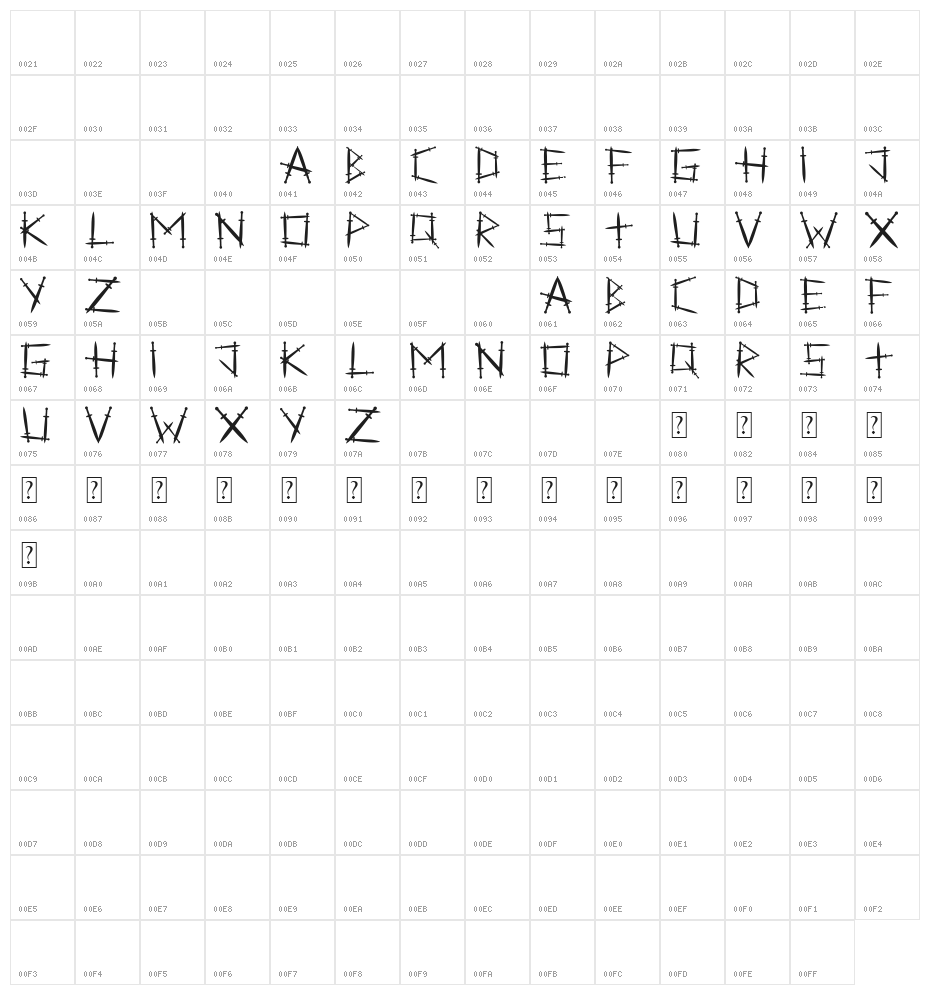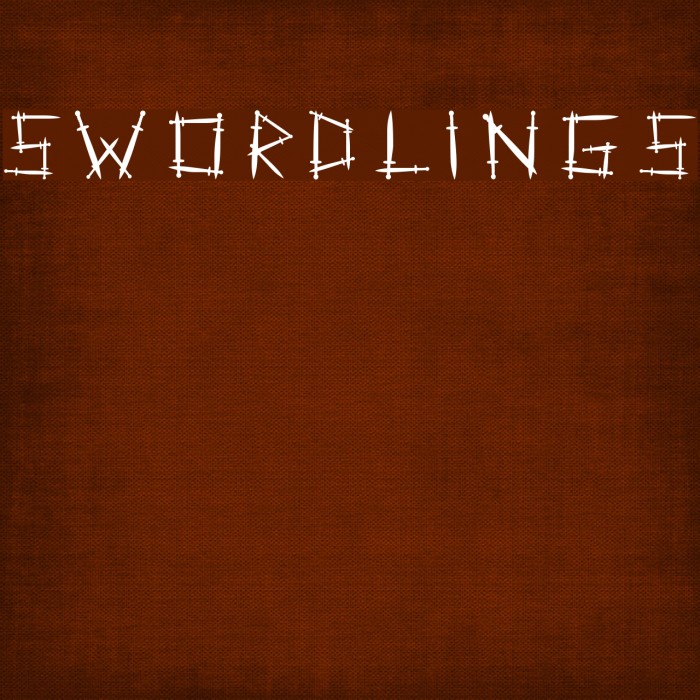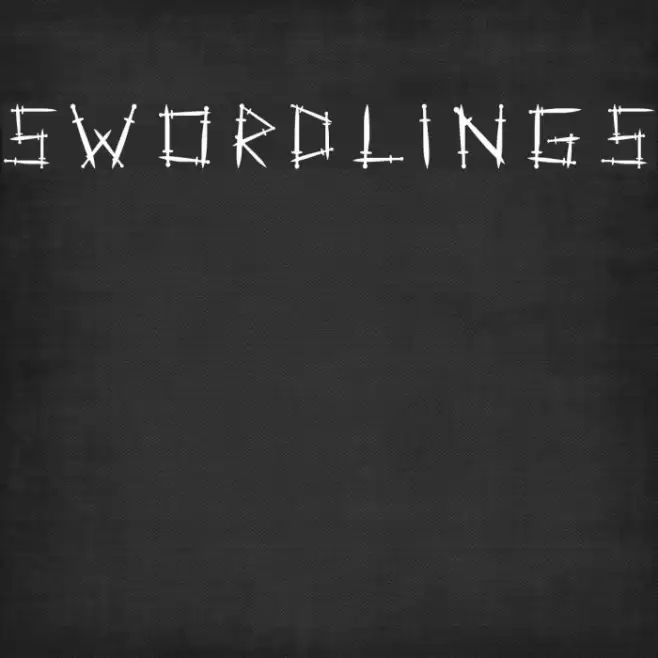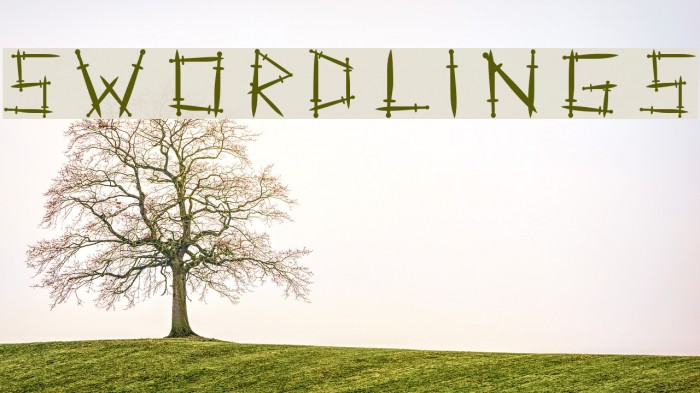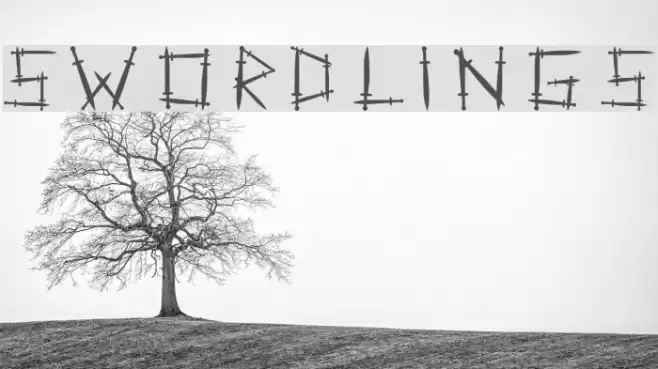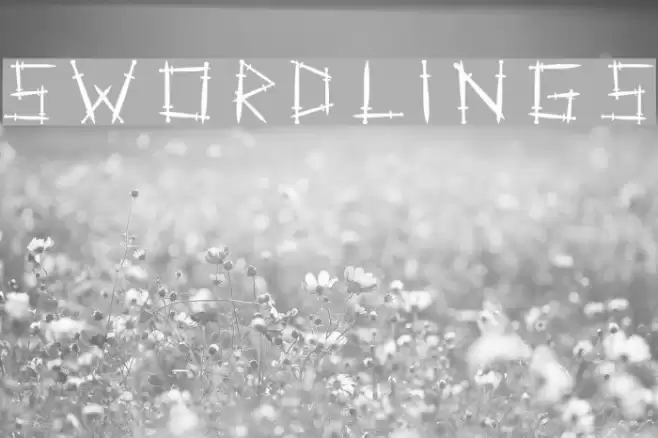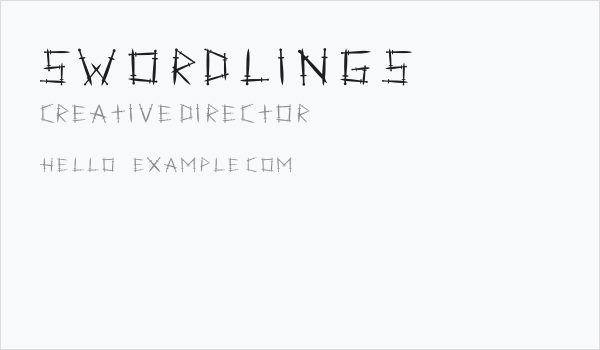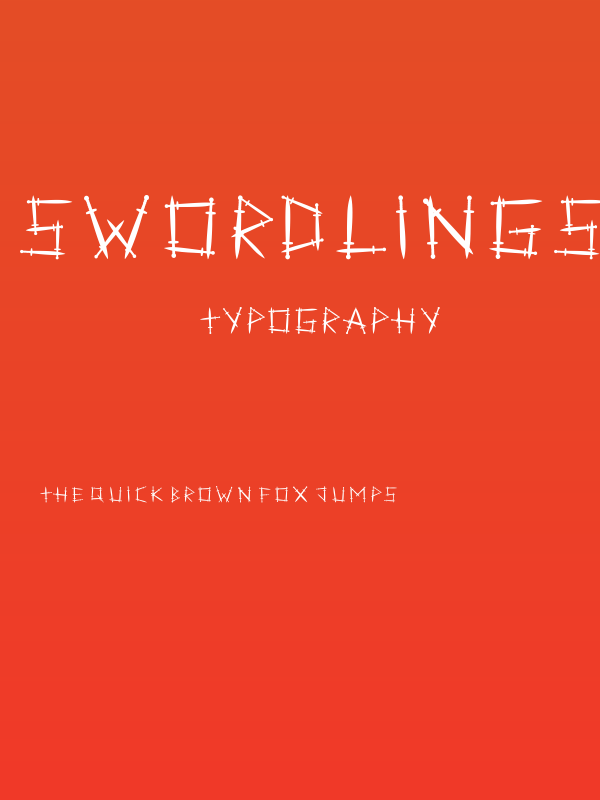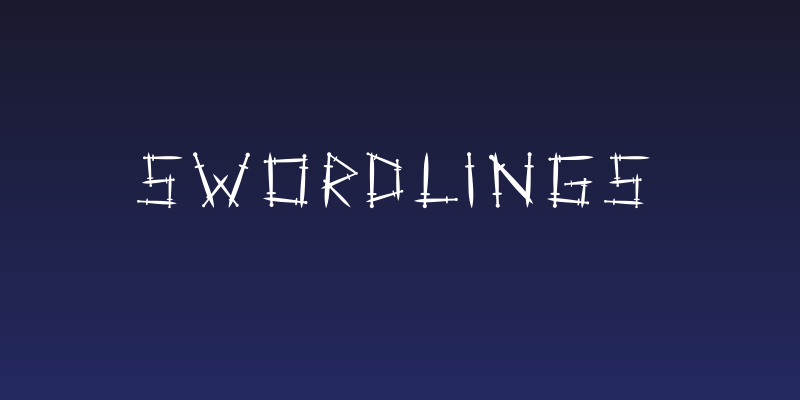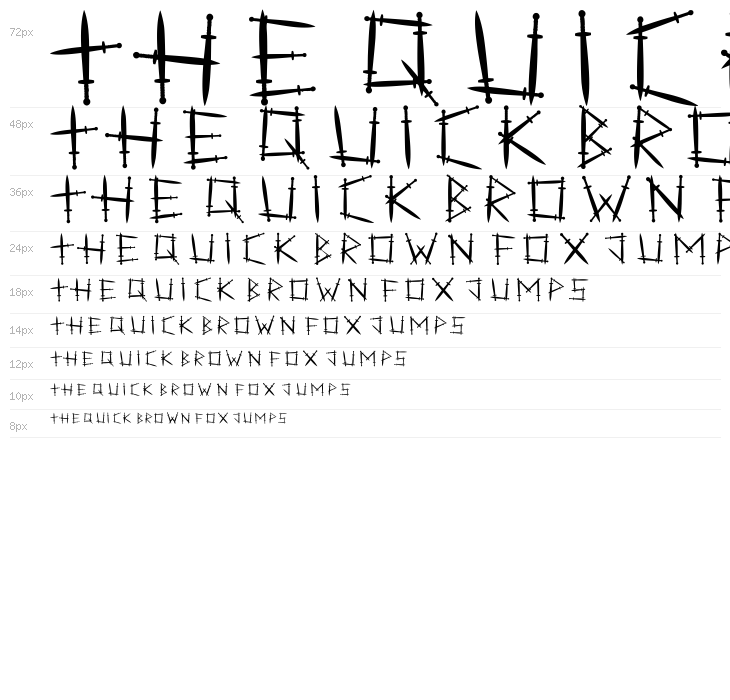
Swordlings Font
Swordlings Description
This font features a unique and edgy design, where each character is crafted to resemble a collection of swords or blades. The strokes are sharp and angular, giving the font a distinct, aggressive appearance. The letters are constructed with varying line thicknesses, adding a dynamic and somewhat chaotic feel. The overall design is reminiscent of medieval or fantasy themes, making it ideal for projects that require a bold and adventurous aesthetic. The uppercase letters are particularly striking, with each character maintaining a consistent height and width, while the intricate details of the sword-like elements add depth and interest.
| Proposed Projects | Perfect for fantasy-themed posters, video game titles, book covers, or any project needing a medieval or adventurous touch. |